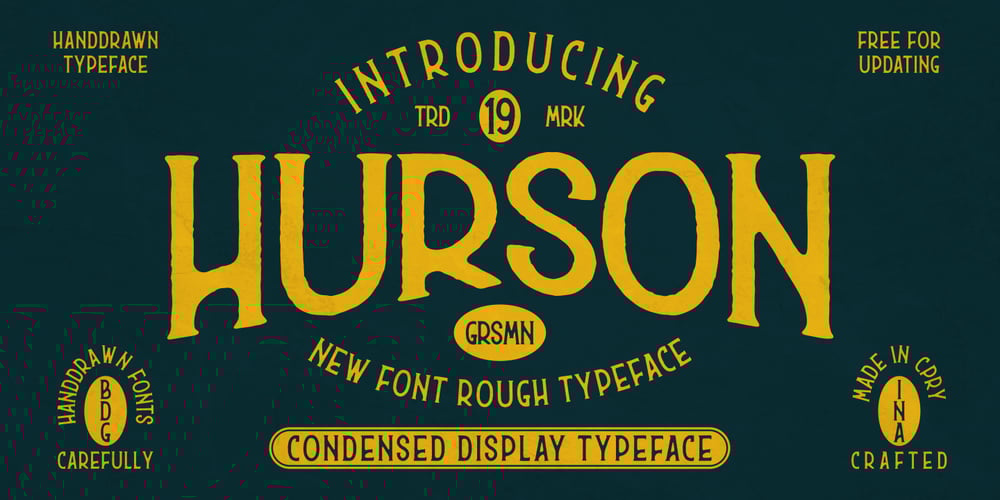
Hurson
Hurson font
Hurson Font Family was designed by Risman Ginarwan and published by Garisman Studio. Hurson contains 1 styles and family package options. HURSON is born from original and hand-drawn style font. This font gives a feel of vintage, classic, old, handmade looked like. Already PUA Encoded and I think this font is perfect for people looking for vintage aesthetic or hand-drawn logo. Suitable for any graphic designs such as branding materials, t-shirts, prints, business cards, logos, posters, photography, quotes, and more.